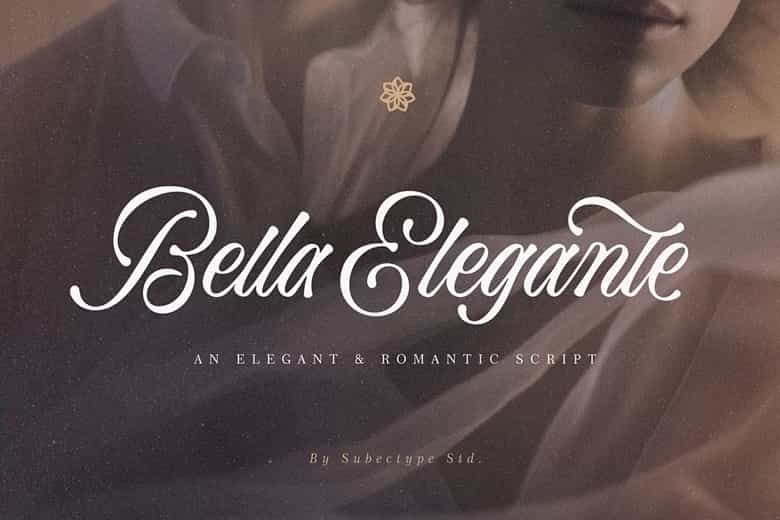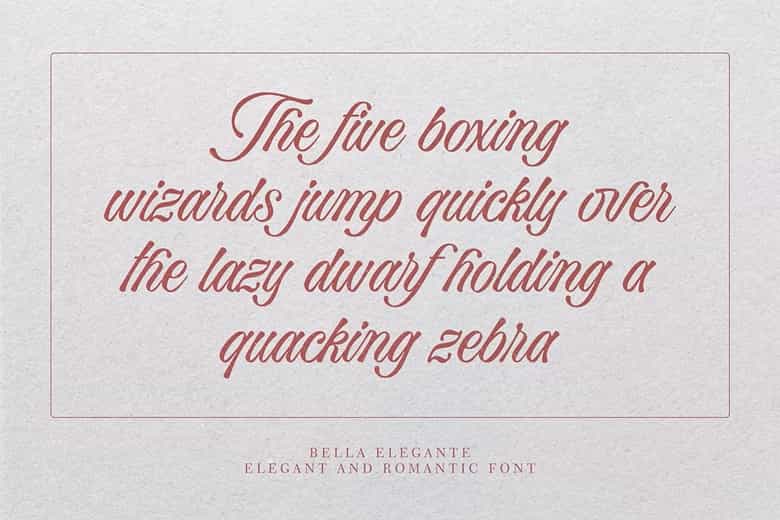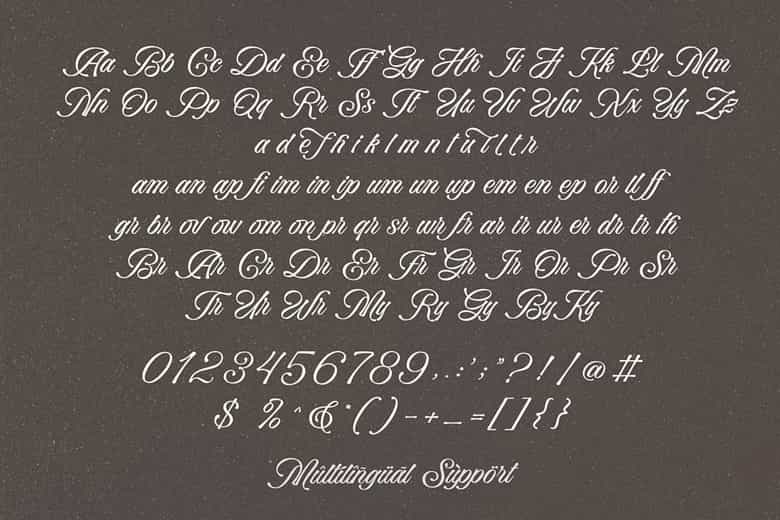
Bella Elegante is an elegant and modern calligraphy script typeface, as described by an Love touch, specifically designed for Wedding party, invitation, Signature brand, and all of the project with beautiful calligraphy font. Deal with its unique and classic character and bring to life fantastic inspiration for the gorgeous clothes!